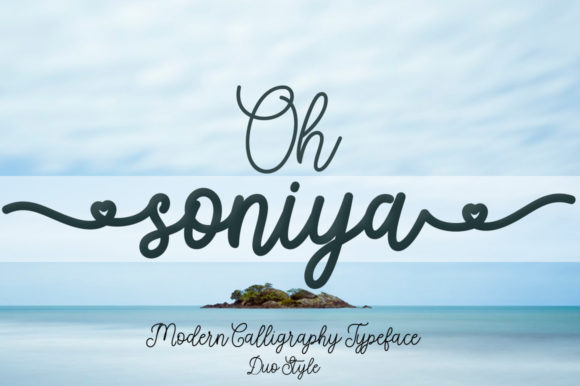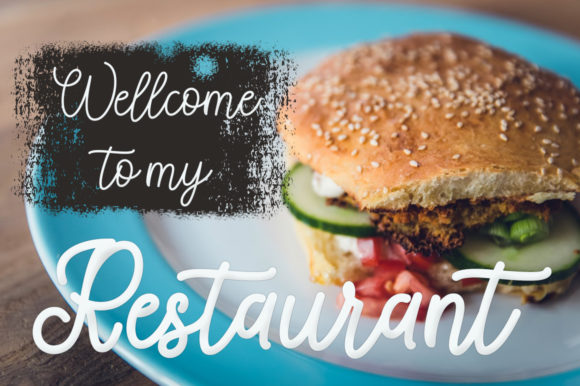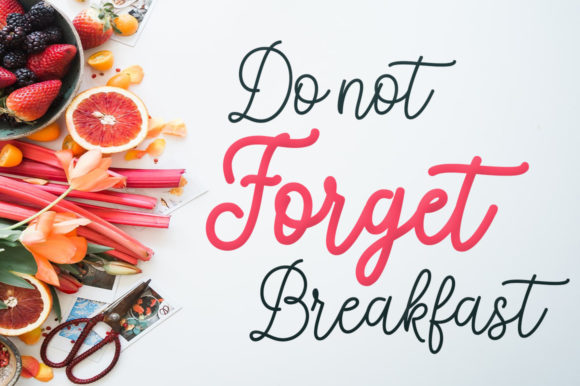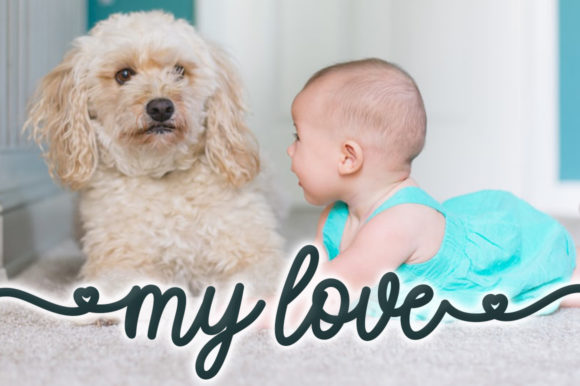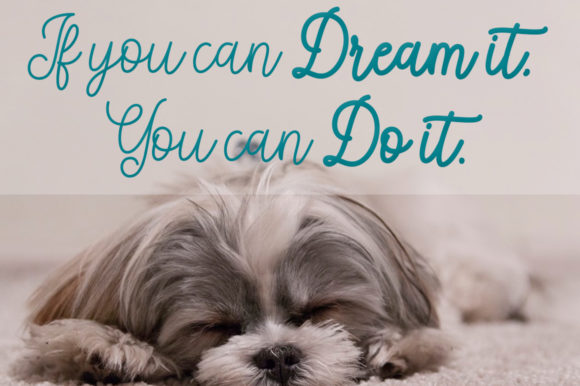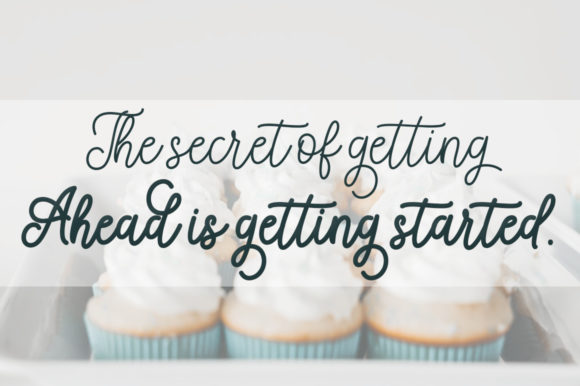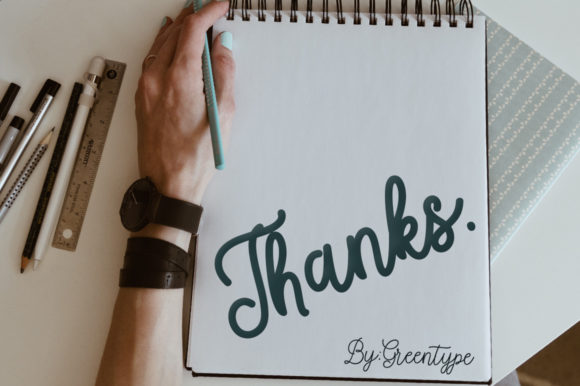
HomeScript FontsSoniya Font Script Fonts Soniya Font FacebookXPinterestWhatsApp Soniya Font Poster 2 Soniya Font Poster 3 Soniya Font Poster 4 Soniya Font Poster 5 Soniya Font Poster 6 Soniya Font Poster 7 About Soniya Font Soniya is a sweet and delicious script font with a cool feel. Get inspired by its unique style! DOWNLOAD ON CREATIVE FABRICAThis font is sold and delivered by Creative Fabrica. Font Canyon may earn a commission if you buy through this link. People also explored Bubble Planner Font Amazing Font Kids Birthday Font Turing Font Meganfoxy Script Font Tobar Senfonea Font De Alhambra Font Xmas Sweater Font MFC Billow Monogram 581 0 TagsSoniya Font Previous articleQuirtty FontNext articleHousttely Font LEAVE A REPLY Cancel reply Comment: Please enter your comment! Name:* Please enter your name here Email:* You have entered an incorrect email address! Please enter your email address here Website: Save my name, email, and website in this browser for the next time I comment. Personal Use Free Martani Personal Use Free Read more about this font Veronica Personal Use Free Read more about this font The Quick Personal Use Free Read more about this font Geuli Personal Use Free Read more about this font BLOG To increase your work productivity, choose the most readable fonts. In today's fast-paced work environment, where digital communication and information consumption are integral to our daily routines, the choice of fonts can significantly impact... Free vs Paid Fonts: Why Investing in Premium Fonts Is Worth It Where to Buy American Fonts Online in 2024 Modern Sans-Serif Fonts That Brands Love in 2025